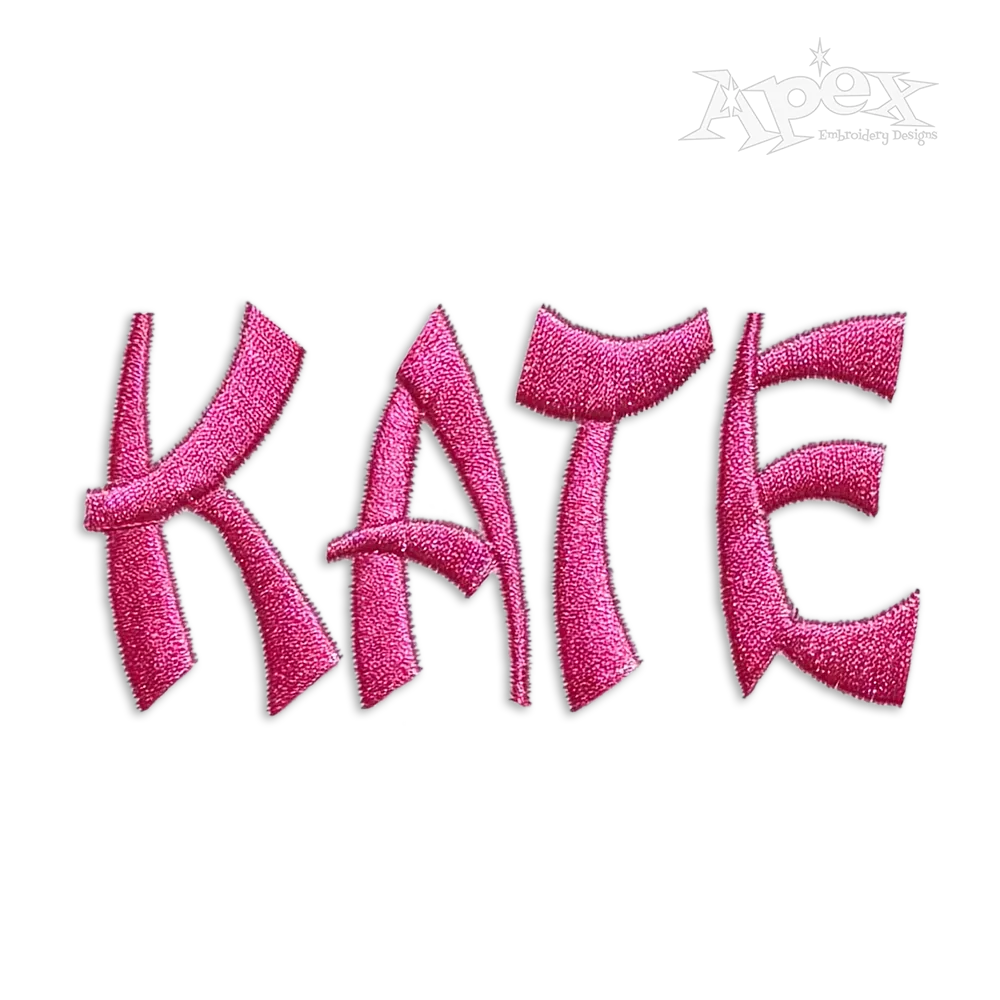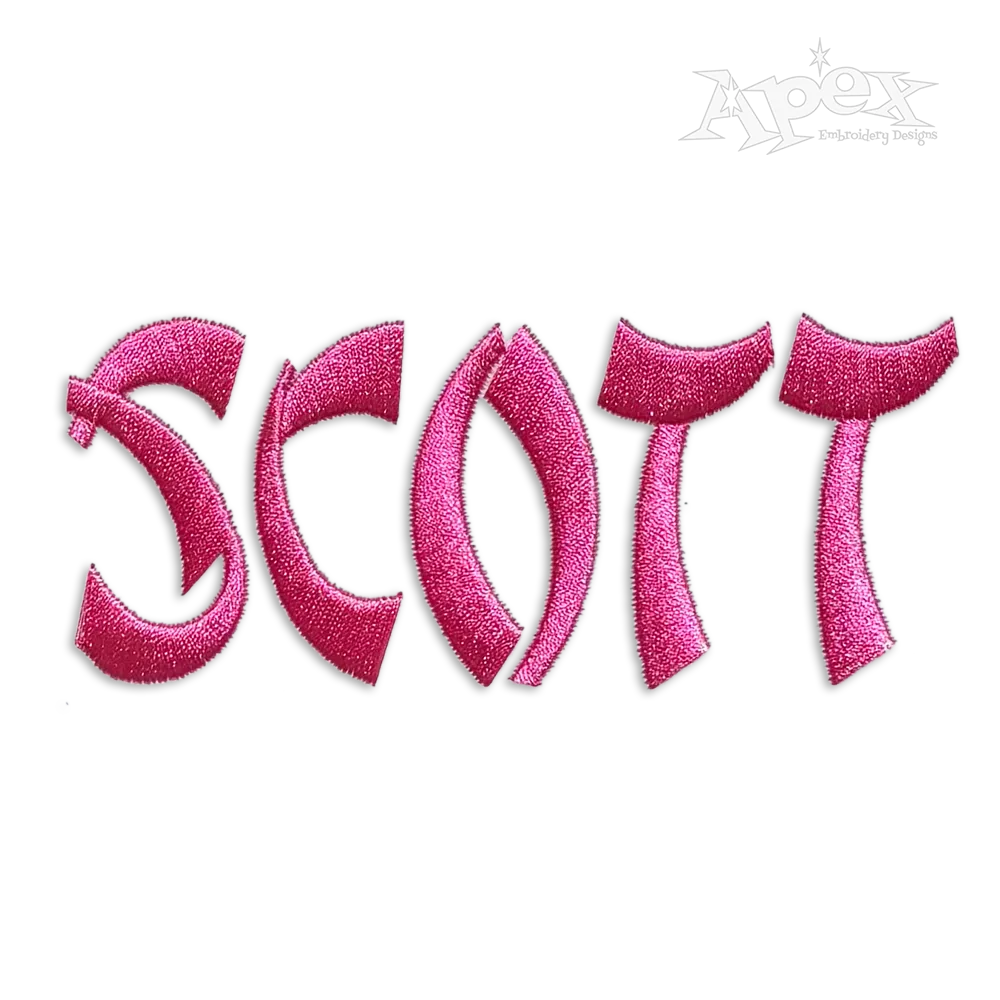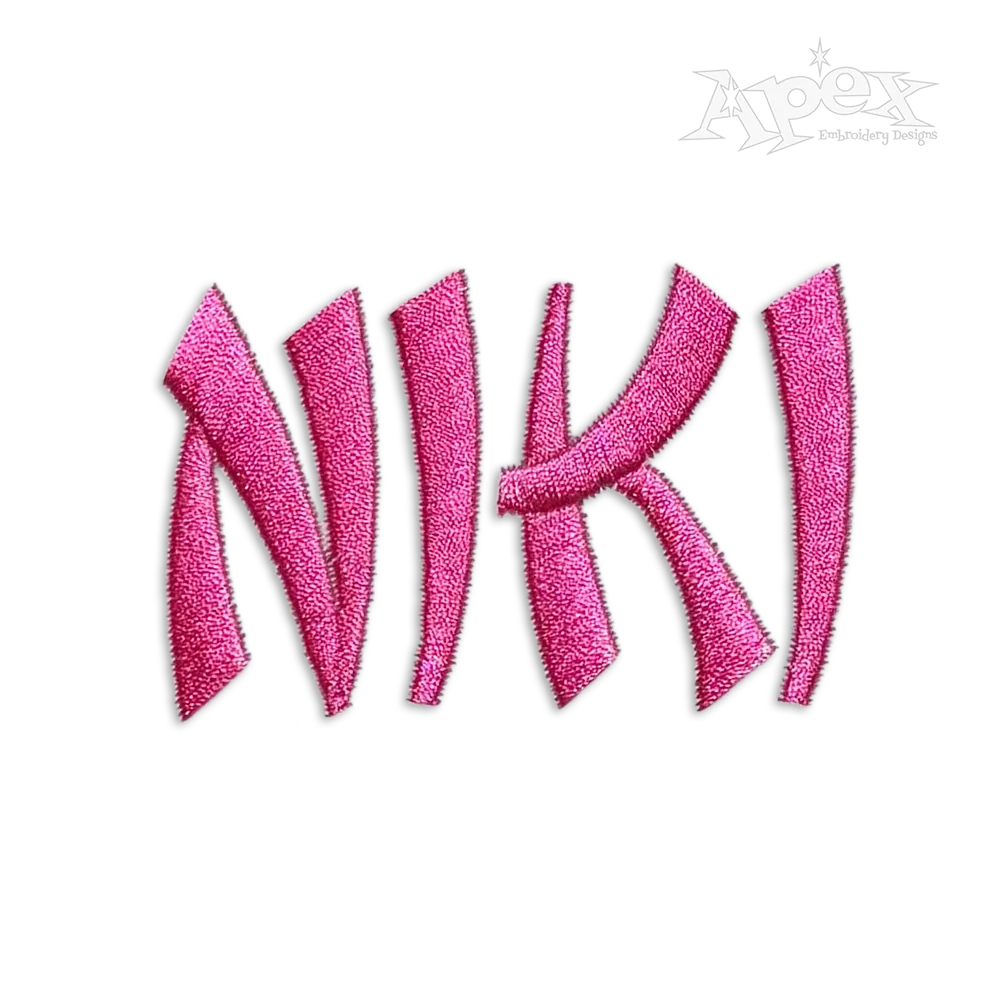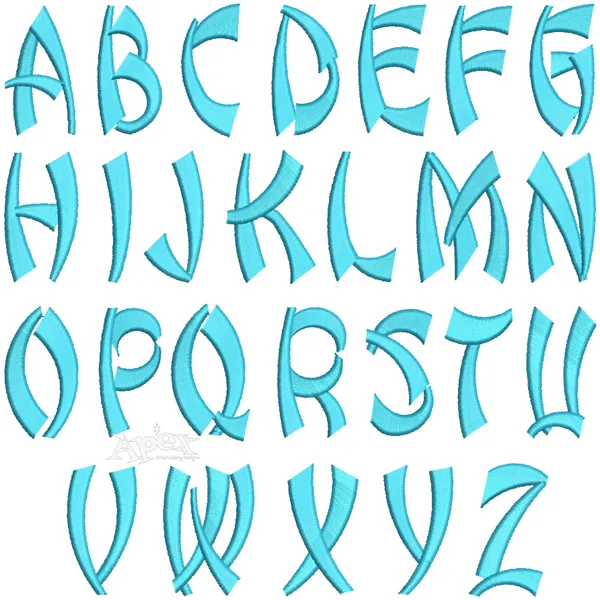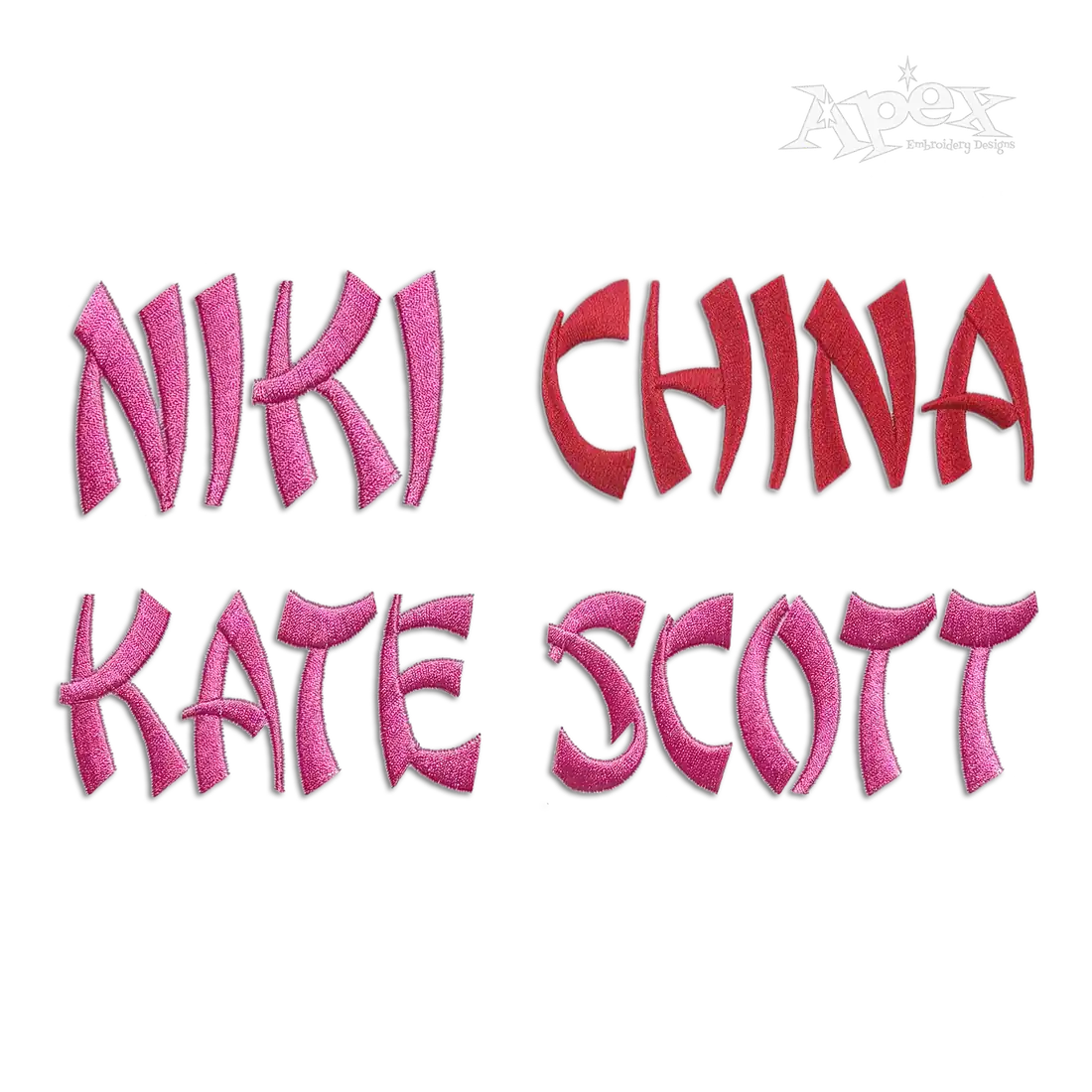
China Time Embroidery Font
Ink meets needle. China Time font captures kinetic grace of East Asian brush calligraphy. Each glyph mimics sweeping pressure of horsehair bristle against paper, digitized into high-density satin stitch columns that flare into razor-sharp terminals. Bold aesthetic brings dramatic energy to custom monogramming, bespoke outerwear, statement gear.
- Uppercase alphabet letters: A through Z.
Project Ideas for China Time
- Martial arts gear: Gi lapels, equipment duffels, rank belt displays.
- Bespoke streetwear: Denim jacket center panels, heavyweight fleece hoodies, bomber sleeves.
- Bespoke resort wear: Structured canvas totes, poolside kimonos, luxury robes.
- Personalized gifting: Wall scrolls, decorative throw accents, keepsake banners.
- Left chest positioning on team jackets, martial arts uniforms, polo shirts.
- Sprawling horizontal back layout across denim yoke or robe back panel.
- Angled corner placement on canvas gear bags, utility totes.
- Vertical column alignment on pant legs or sleeve bands.
China Time Craft & Letterform Details
Letterforms balance tension, weight, fluid motion. Every character features sculpted satin stitch pathing designed to reflect traditional calligraphic stroke order. Thick stems taper abruptly, flare into distinctive swept serifs. Underlay architecture stabilizes high-tension pull compensation, ensures smooth edge definition on stretch or textured grounds. Dynamic thread angle transitions catch light, create visual depth across flat textiles.